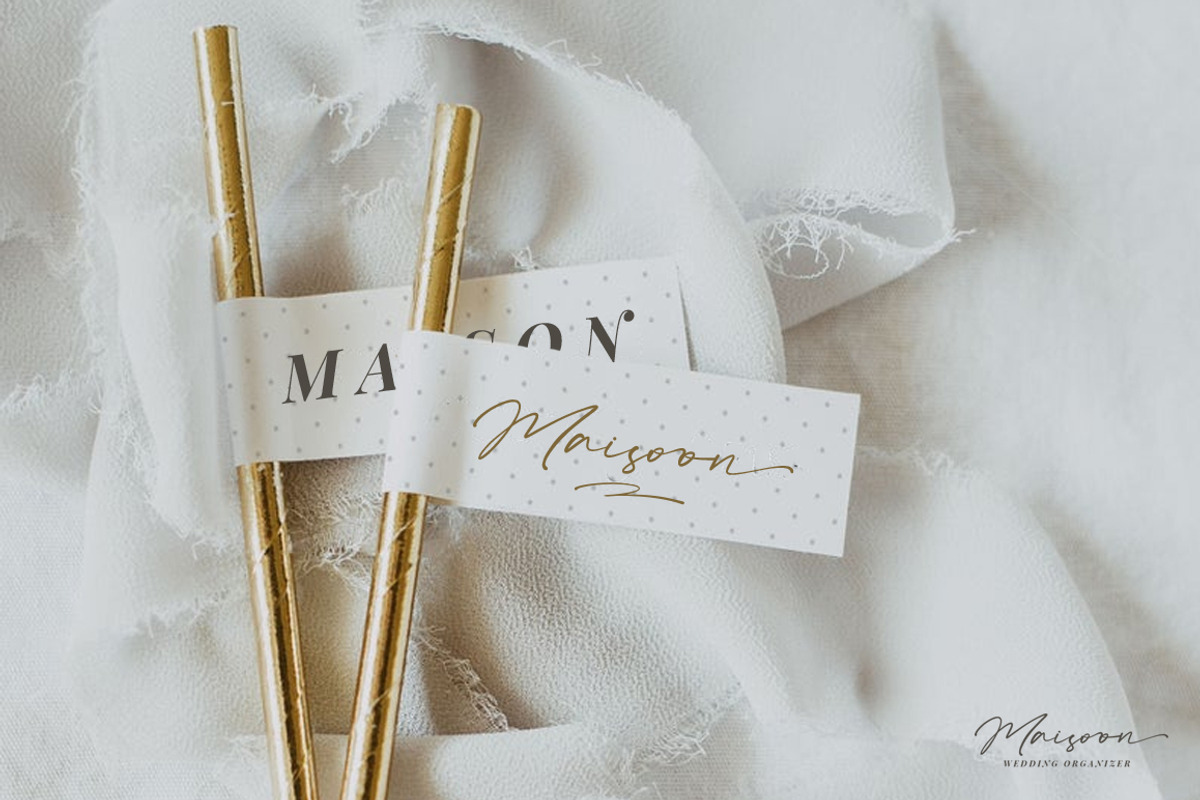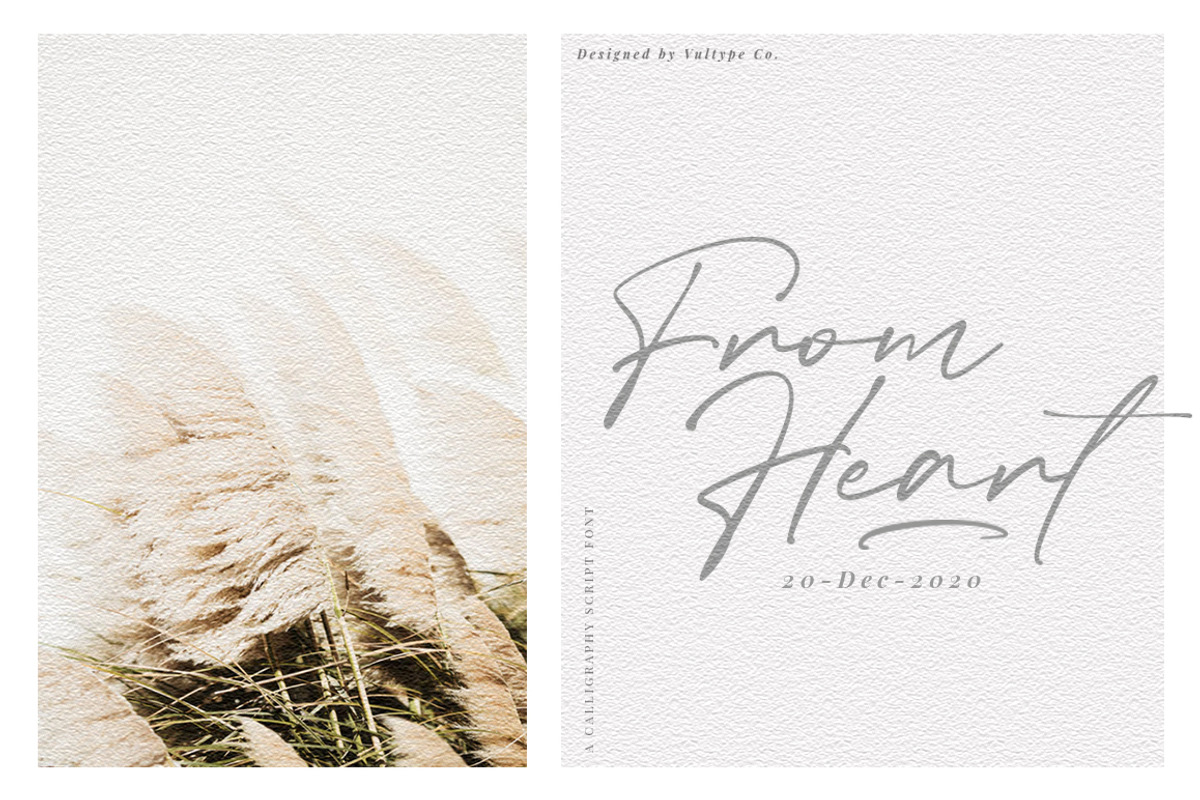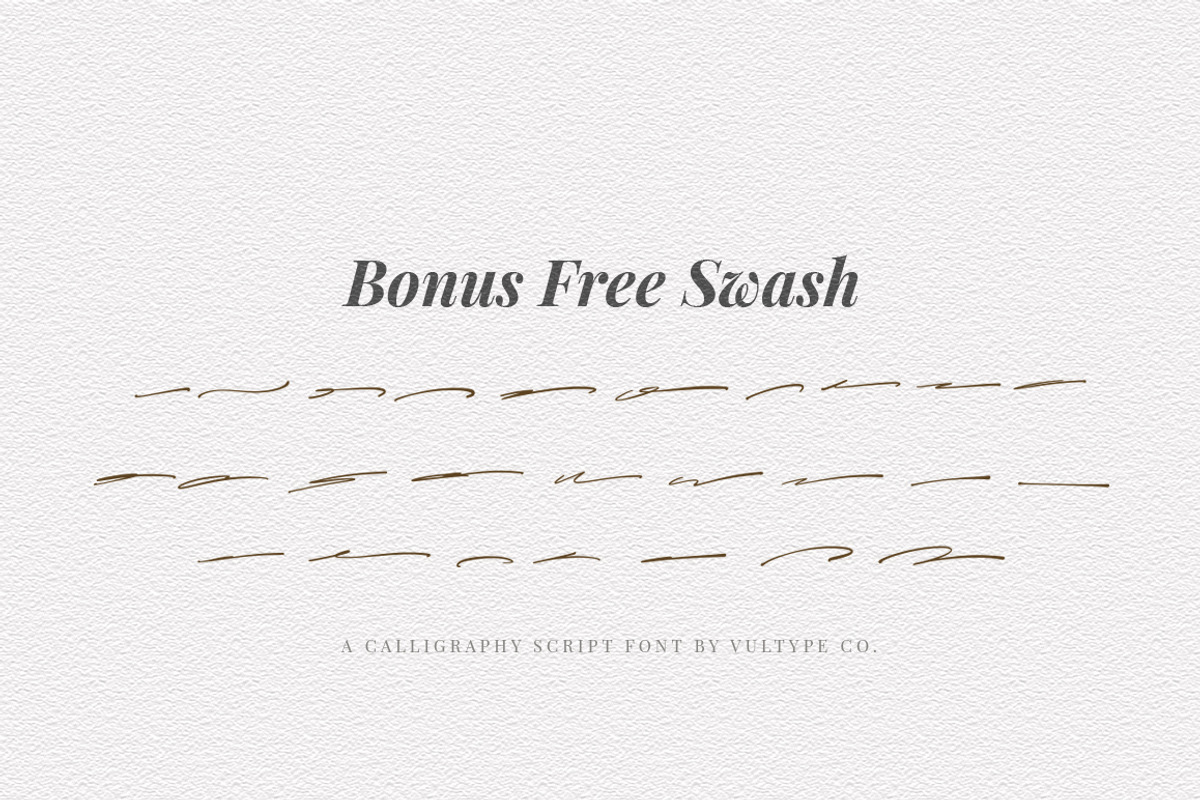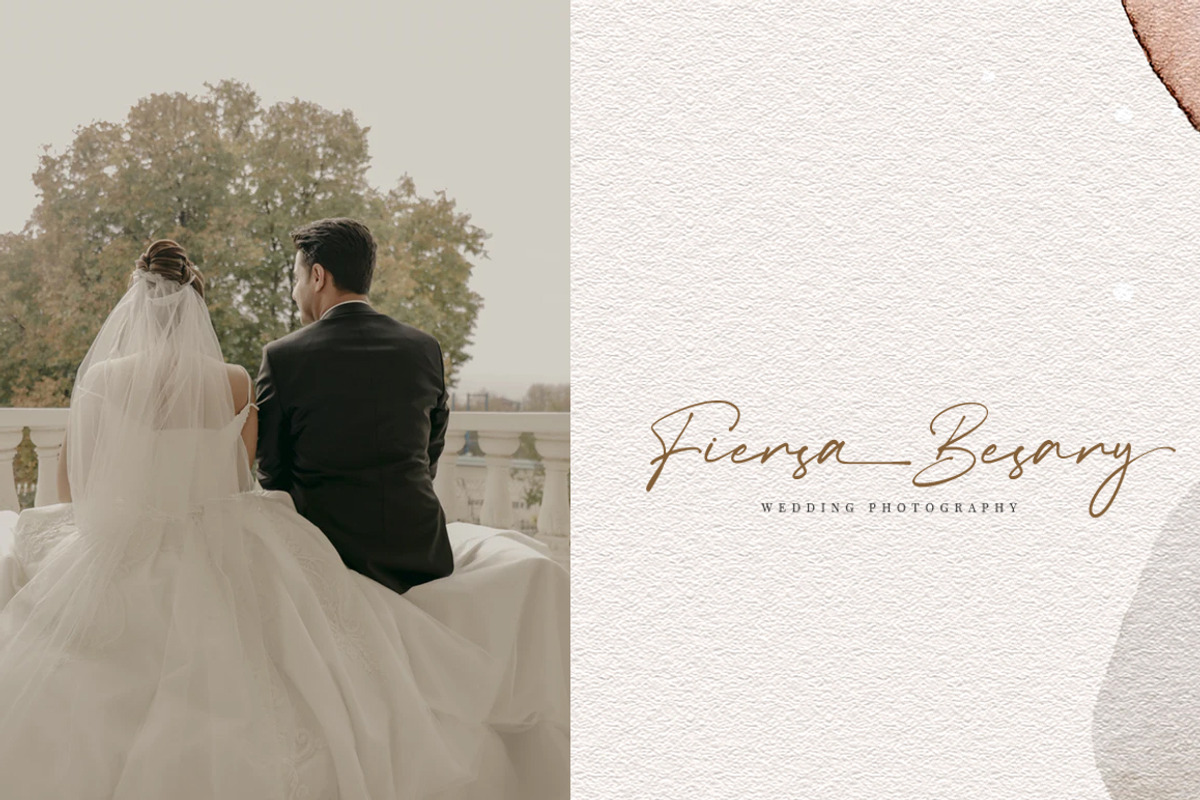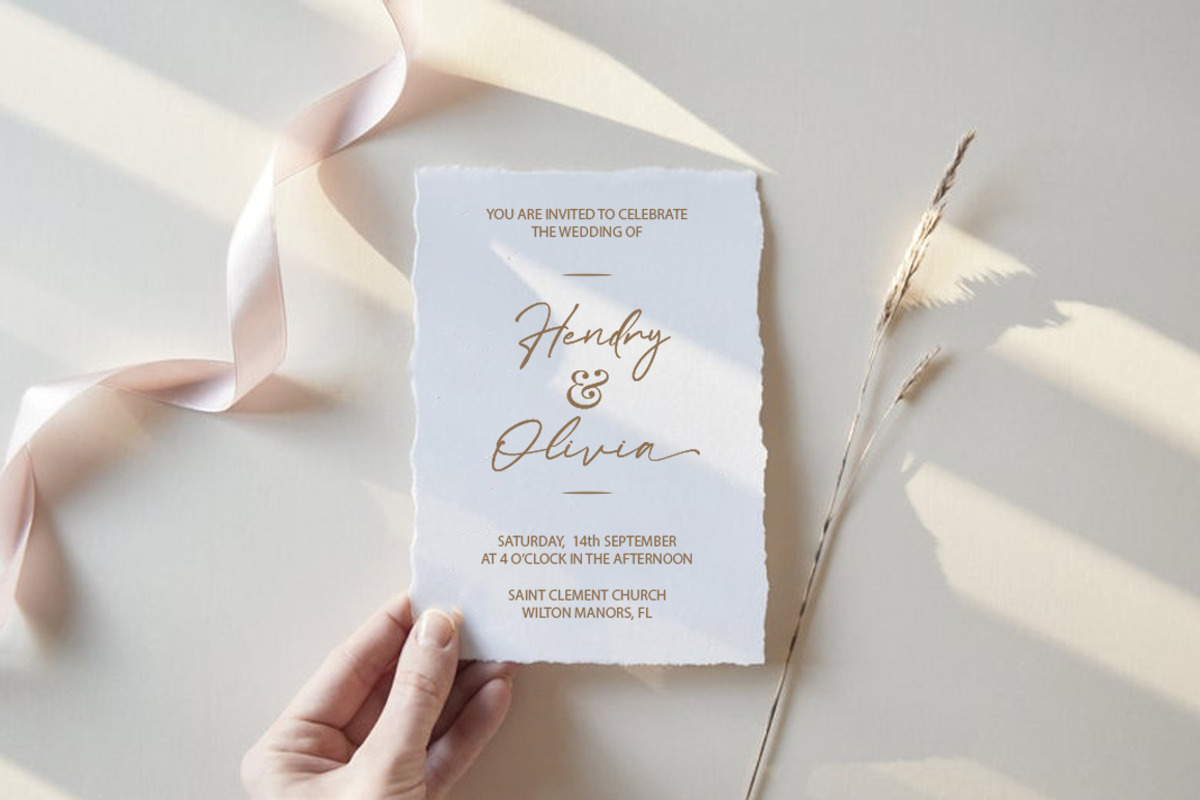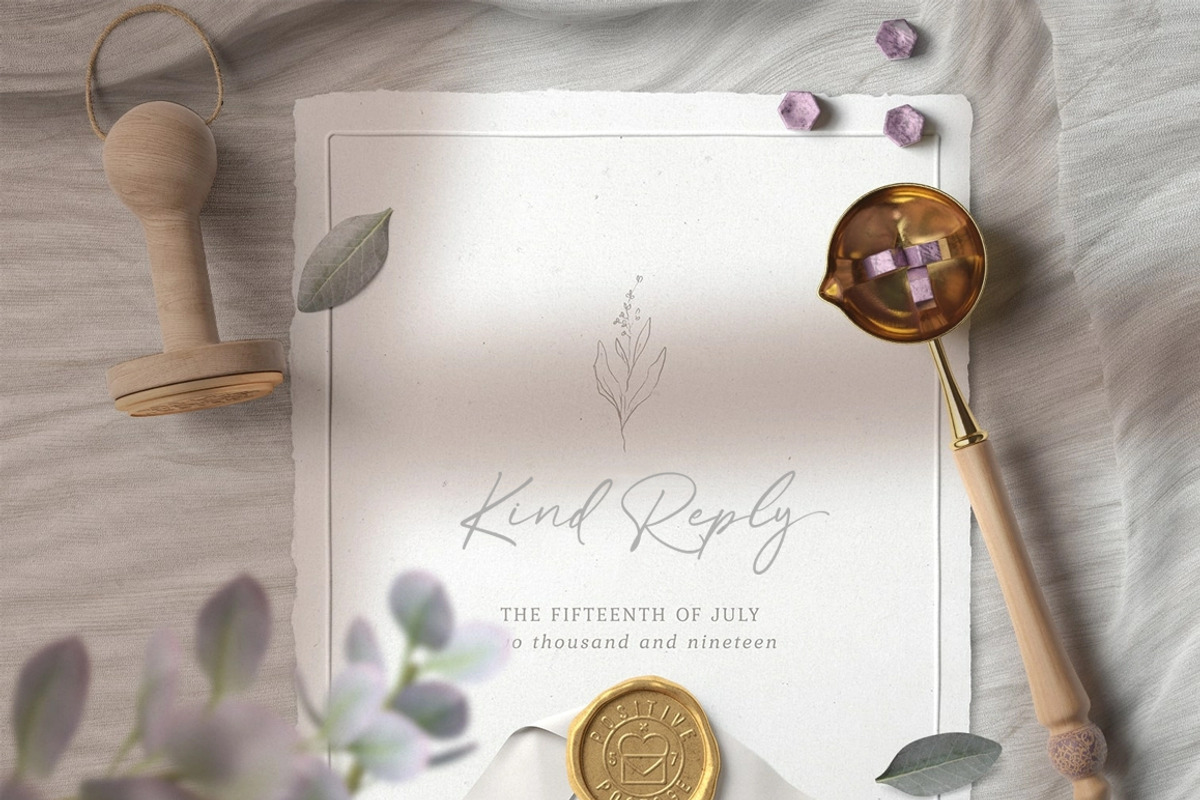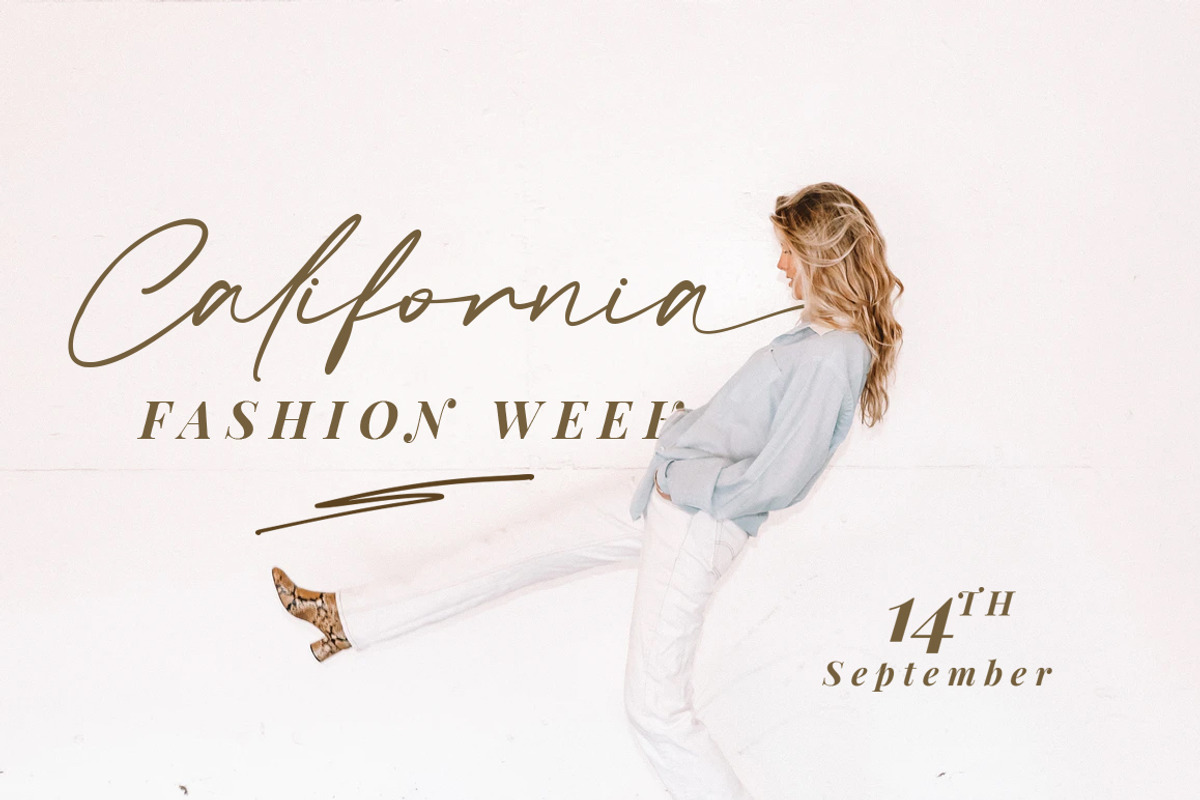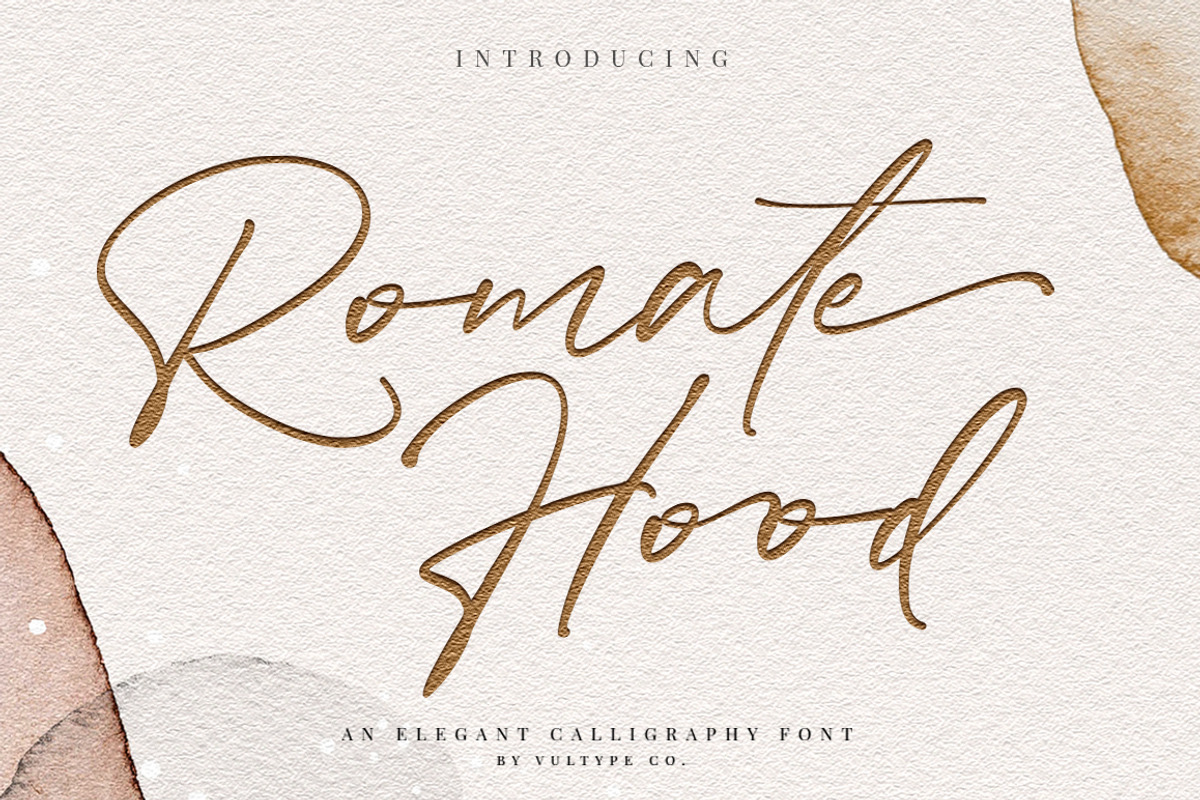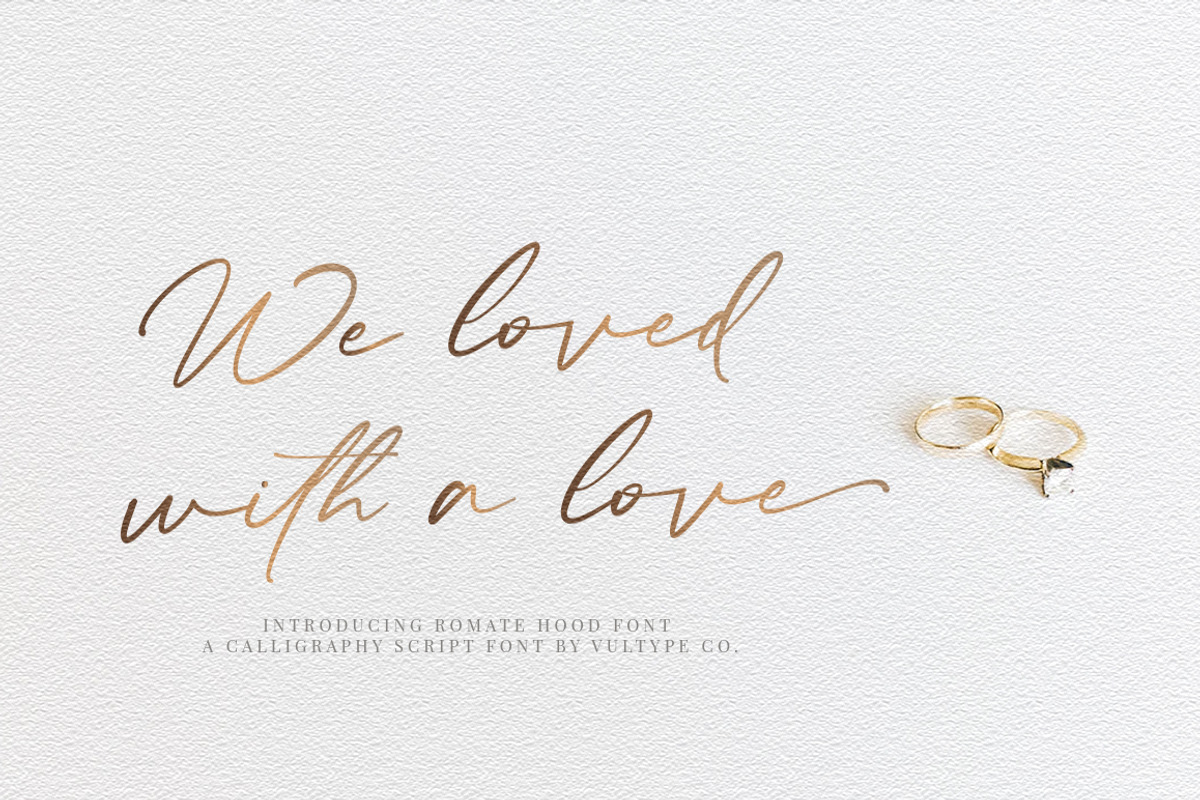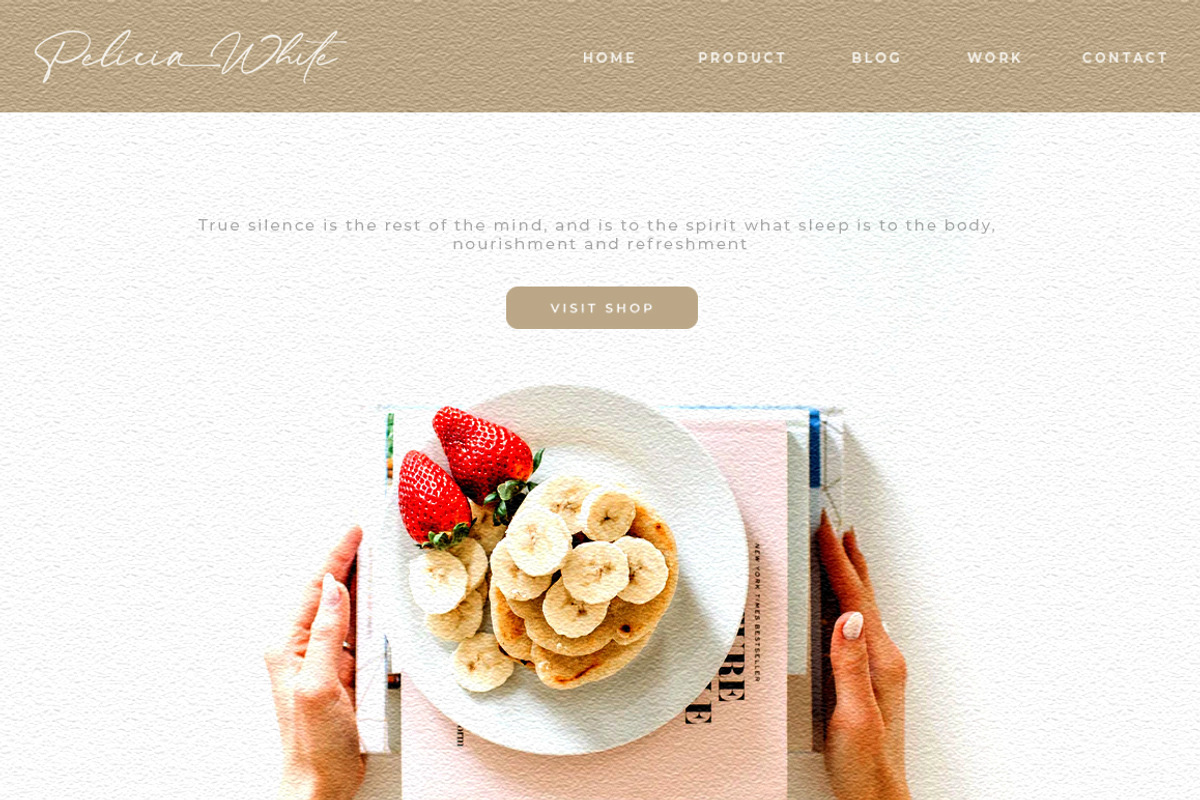
SALE ! Romate Hood Font is minimalistic script with beautiful ligature and alternate font.
inspired by a luxury fashion. Contemporary handwriting fonts with ligatures and alternative styles ready to add unique look and bloom on your design
It easily cooperating together For Magazine, Movies, or Book Titles. For Photography, Wedding Invitation, Restaurant Menu or T-shirt Design. For Flyers, Banner Ads, web and printing. From Food and Fashion to a Cosmetics product
Romate Hood Font Features :
- Upper + Lowercase Letters
- Numbers + Punctuation
- Ligature Feature
- OpenType features